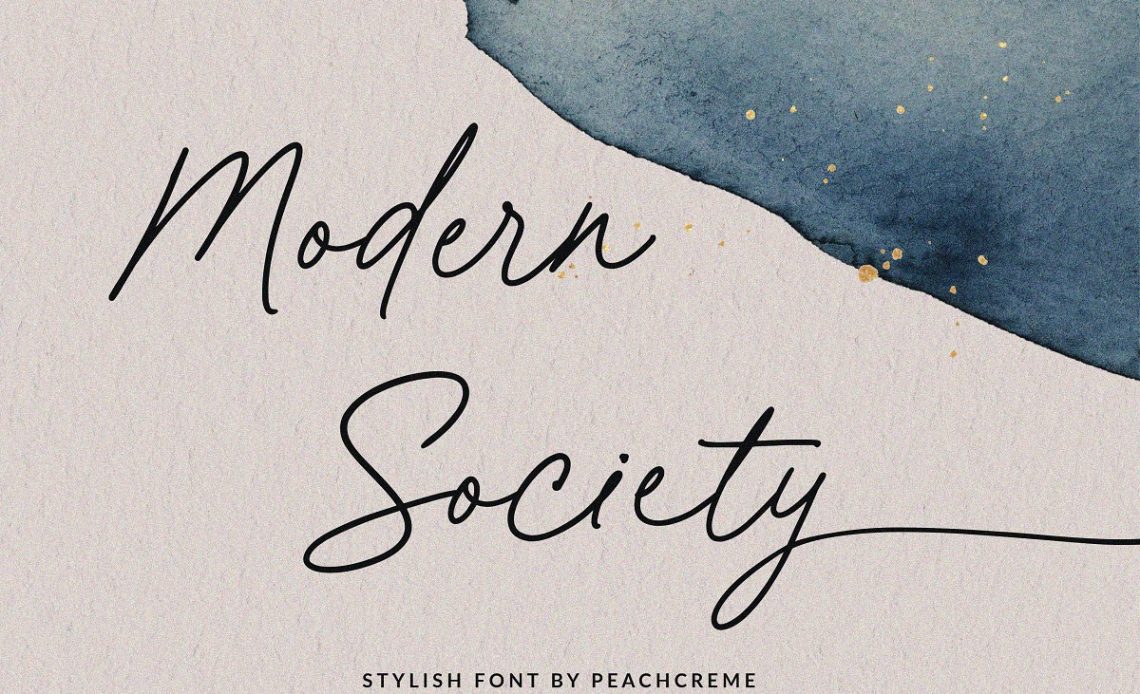
Introducing Modern Society - the stylish and elegant handwriting font that is perfect for creating the most beautiful wedding cards. Created by PeachCreme, this font is a blend of modern and classic styles, making it ideal for adding a touch of charm to any design.
Modern Society comes with adorable beginning and ending lowercase swashes that give your text a unique and charming touch. With all uppercase and lowercase letters, symbols, numerals, punctuation, and ligatures, this font is perfect for a wide range of design projects.
Whether you're creating wedding invitations, logos, stationery, or just adding some beautiful text to your designs, Modern Society is the perfect choice. It has a sleek ball pen flow that adds a touch of elegance to your designs and makes them stand out.
With Modern Society, you can create designs that are truly one-of-a-kind. This font is perfect for designers who want to create designs that are beautiful and eye-catching. It's also perfect for those who want to add a touch of sophistication and elegance to their designs.